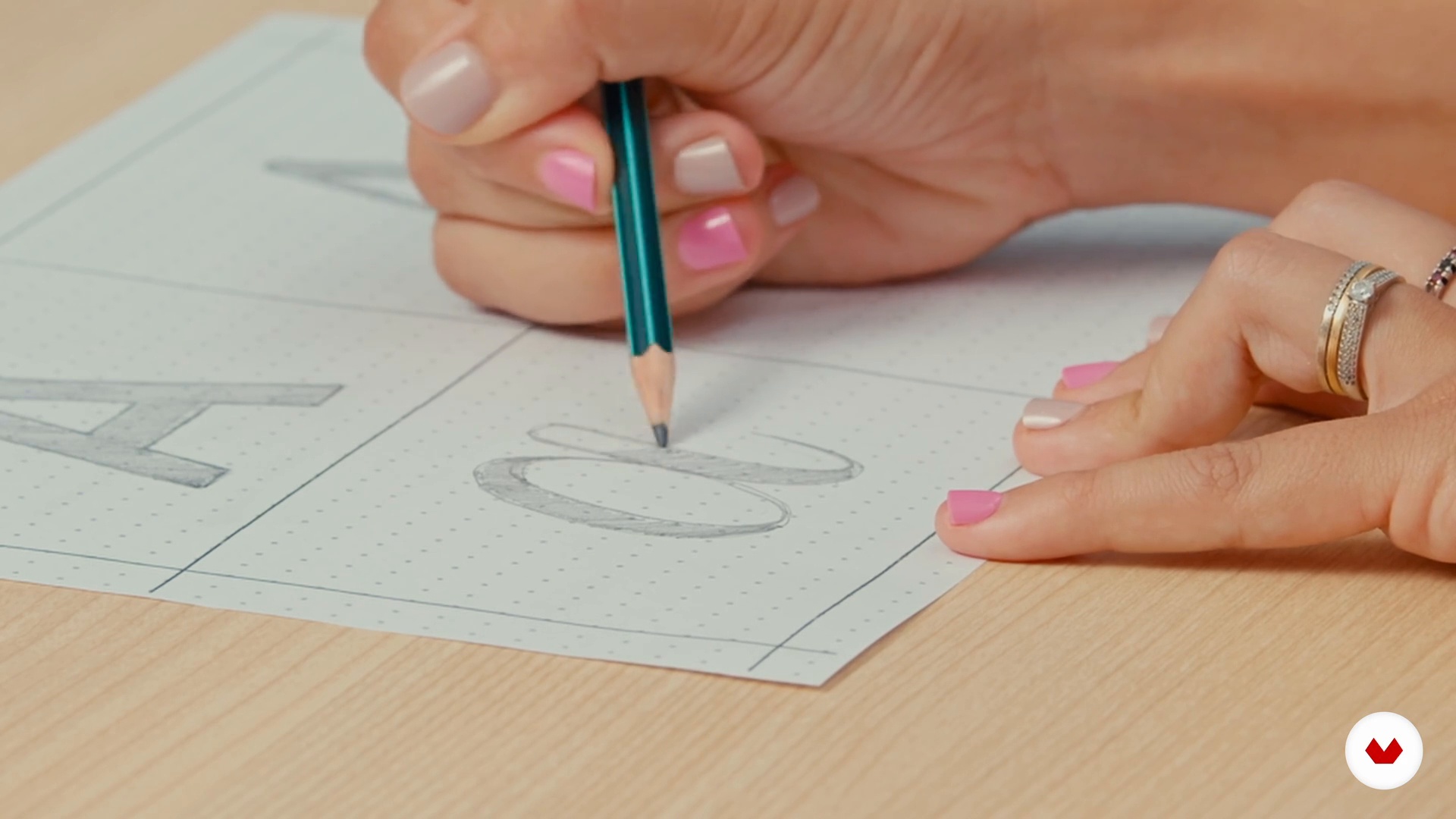
Cursive and fantasy font design
About the video: Cursive and fantasy font design
“Now that you've learned two styles of lyrics, let's move on to our repertoire. In this class, you will start sketching two styles of letters with easy hacks for creating an objective and practical drawing of cursive and fancy lettering.”
In this video lesson Karol Stefanini addresses the topic: Cursive and fantasy font design, which is part of the Domestika online course: Creative Lettering: Draw Words with Style. Learn to combine text, colors, and other decorative elements to compose fun, eye-catching lettering pieces on any surface.
“Cursive and fantasy font design In this class, I will continue teaching you how to draw letter styles. Let's continue with cursive and fancy handwriting. We'll start with cursive And here's a really cool tip for you: when you go looking for references to these alphabets or letter styles, you can search for reference both uppercase and lowercase letters. Here I will draw with you a variation of all of them. For example, in cursive, I will make a lowercase letter. In the first two sans serif and serif, I made a capital letter. But then it's up to you and you can search these letters also acco...”